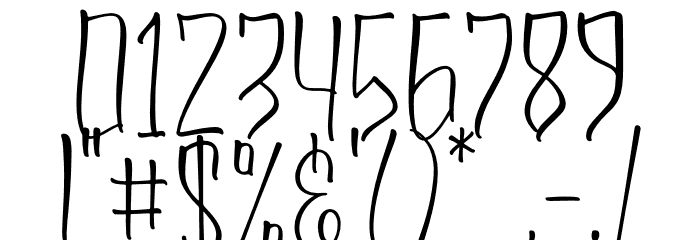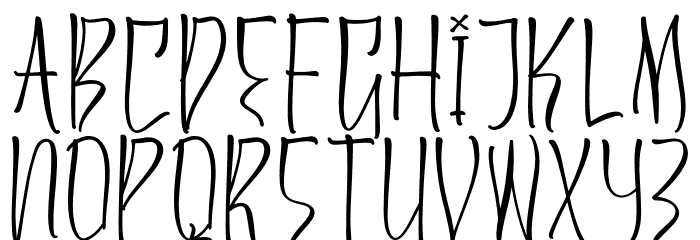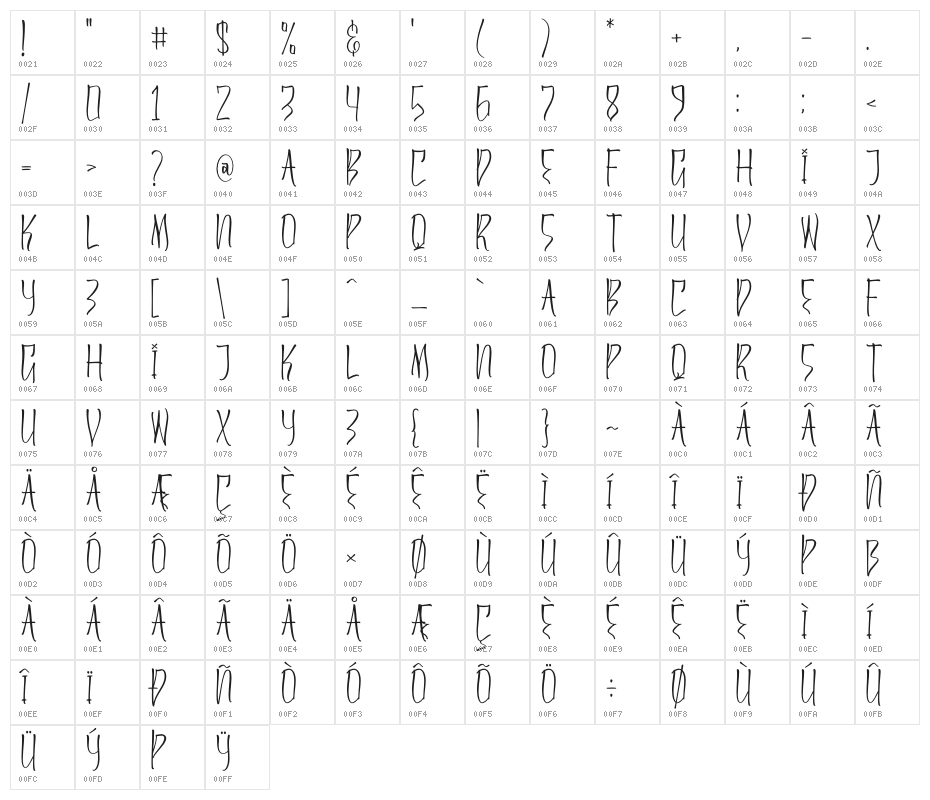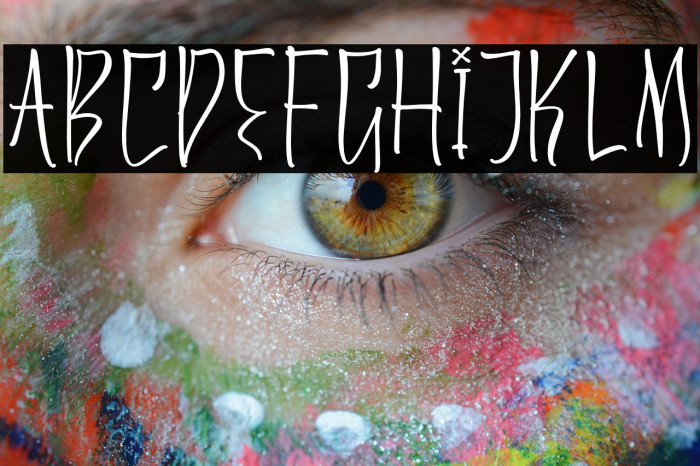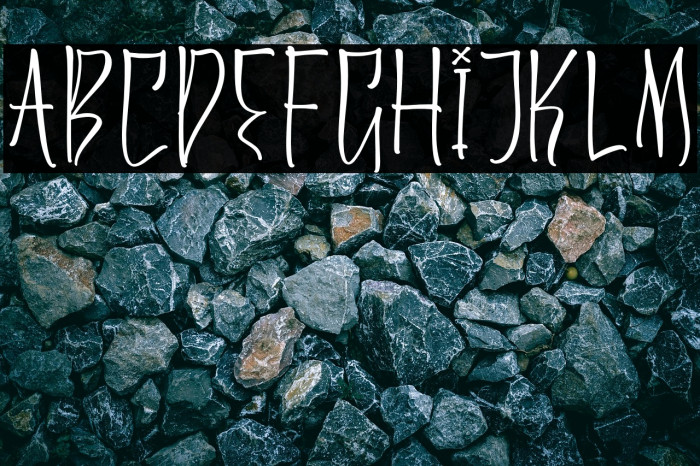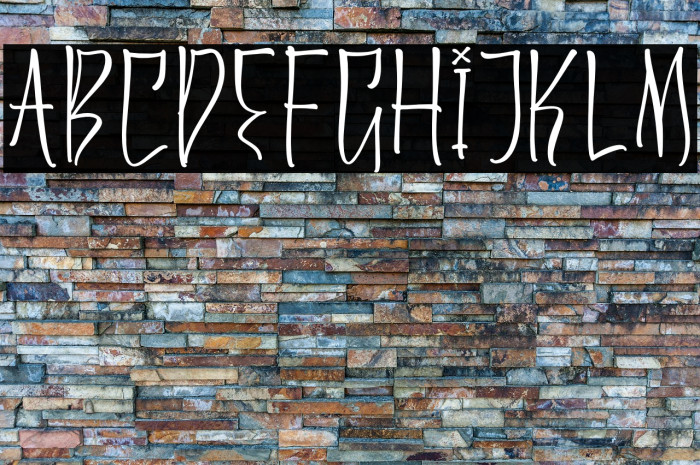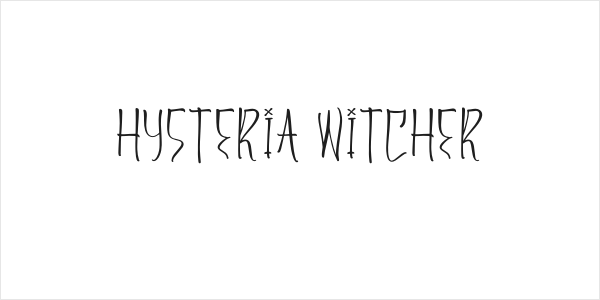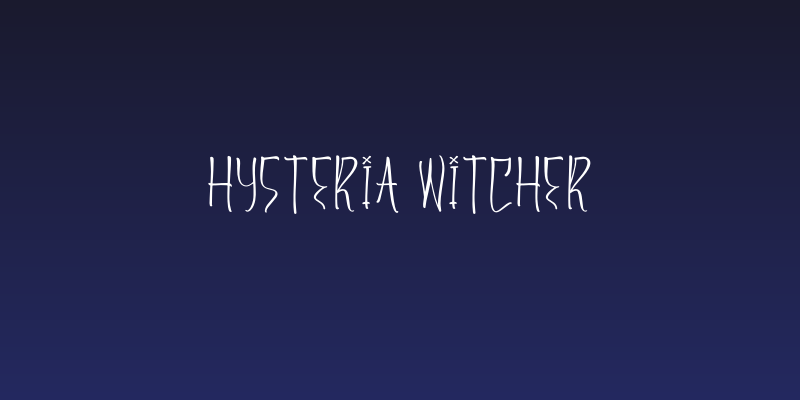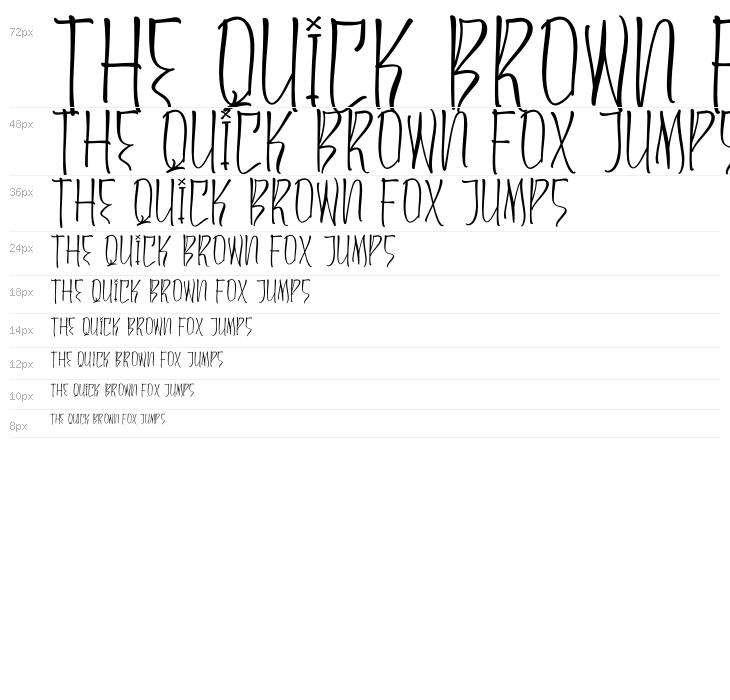
Hysteria Witcher Font
Hysteria Witcher Description
This font features a unique, hand-drawn style with tall, narrow characters that exhibit a slightly irregular and whimsical appearance. The strokes are uneven, giving it a playful and artistic vibe. The uppercase and lowercase letters maintain a consistent height, contributing to a cohesive look. Numbers and special characters follow the same design principles, ensuring uniformity across all elements. The font's distinctiveness lies in its quirky, almost mystical aesthetic, making it suitable for creative and unconventional projects.
| Use Case | Logos, Book covers, Posters |
| Proposed Projects | Ideal for fantasy-themed designs, artistic posters, book covers, and creative branding projects. |